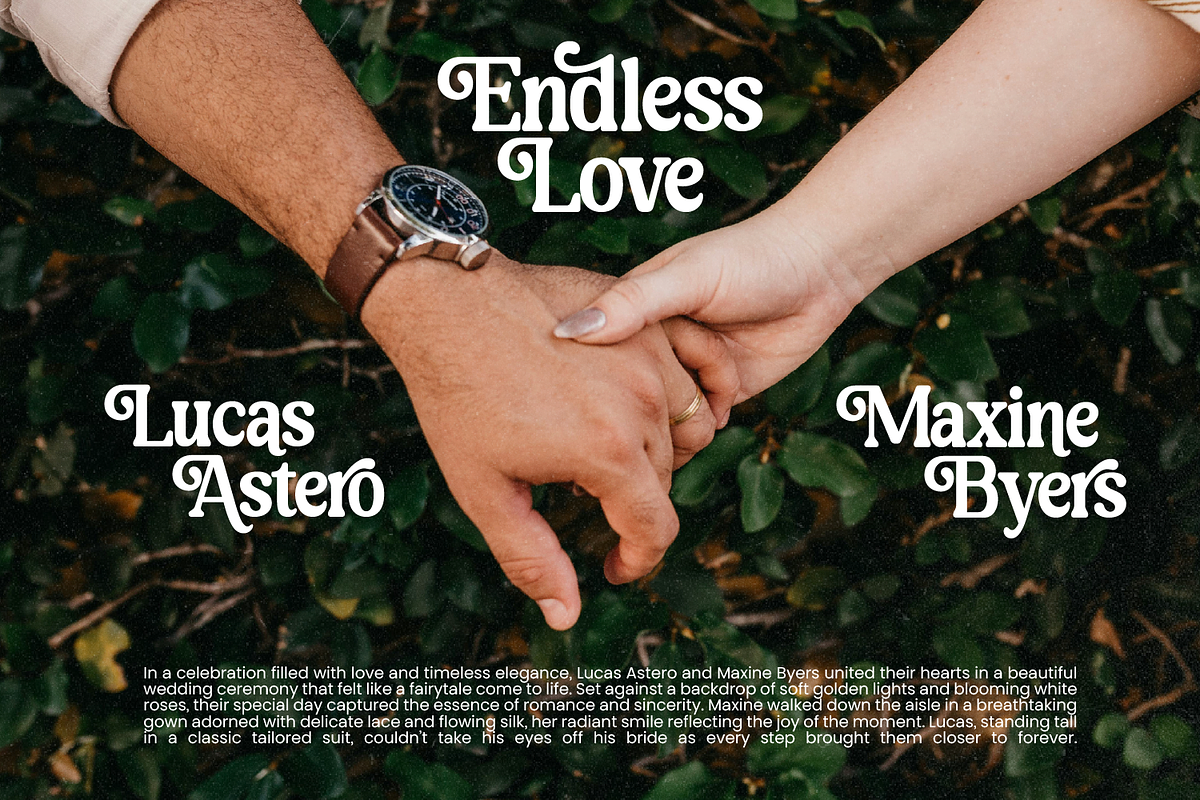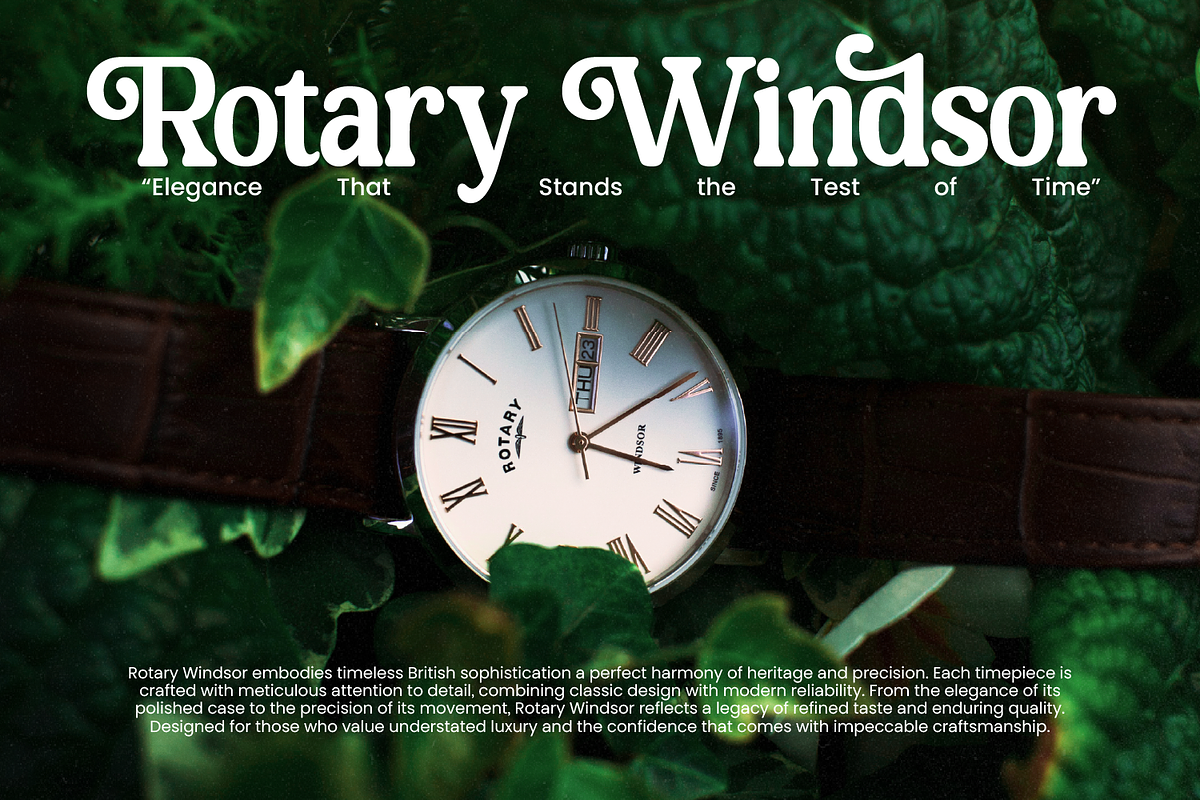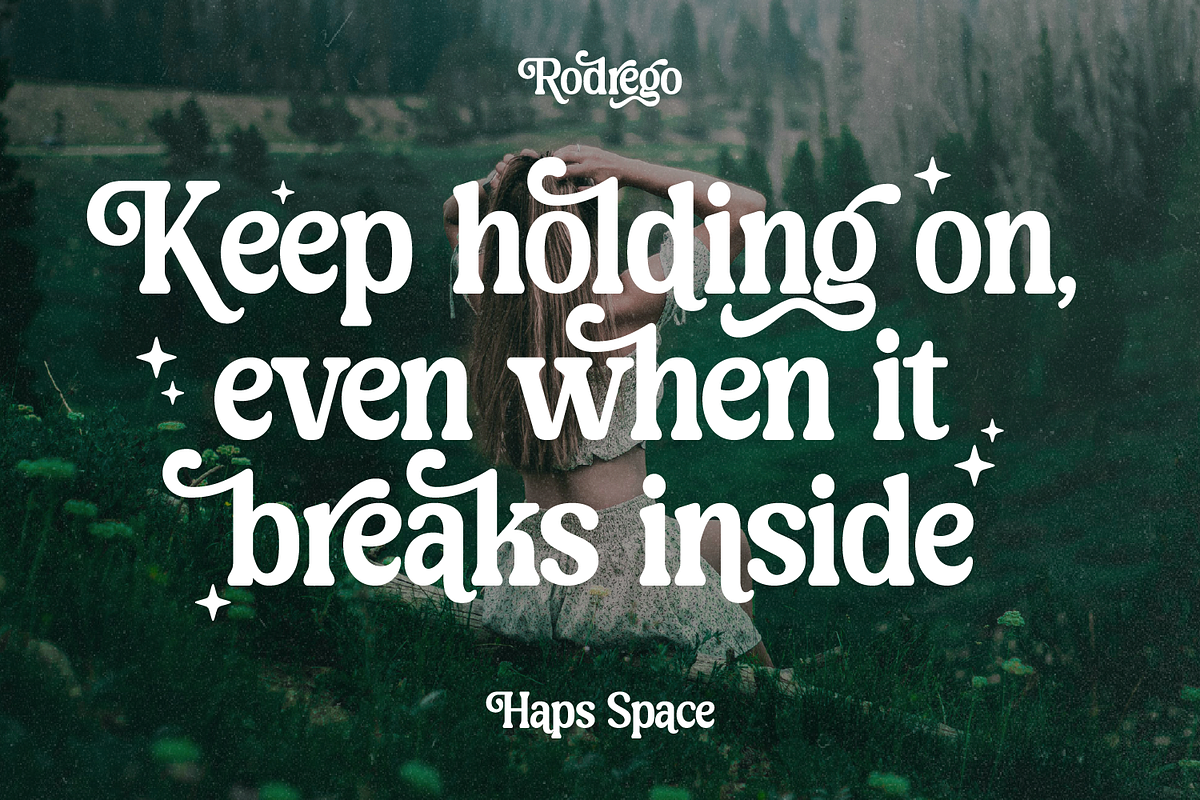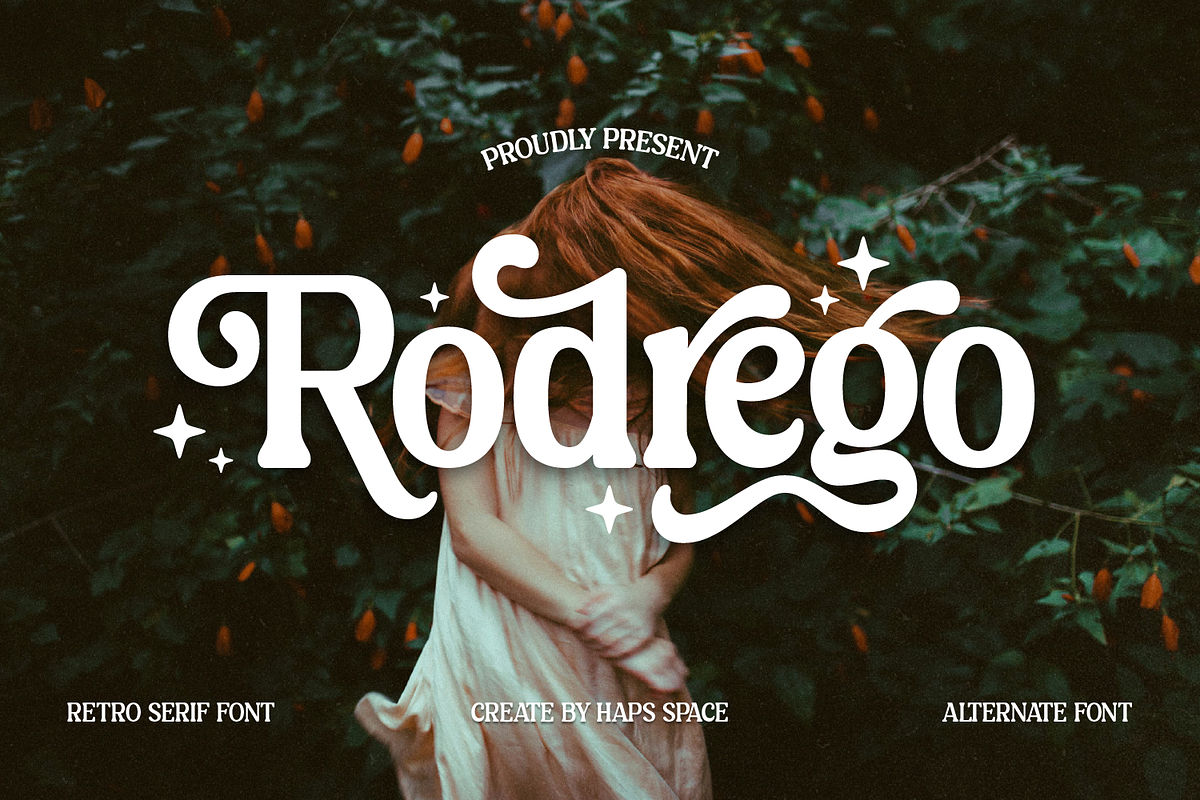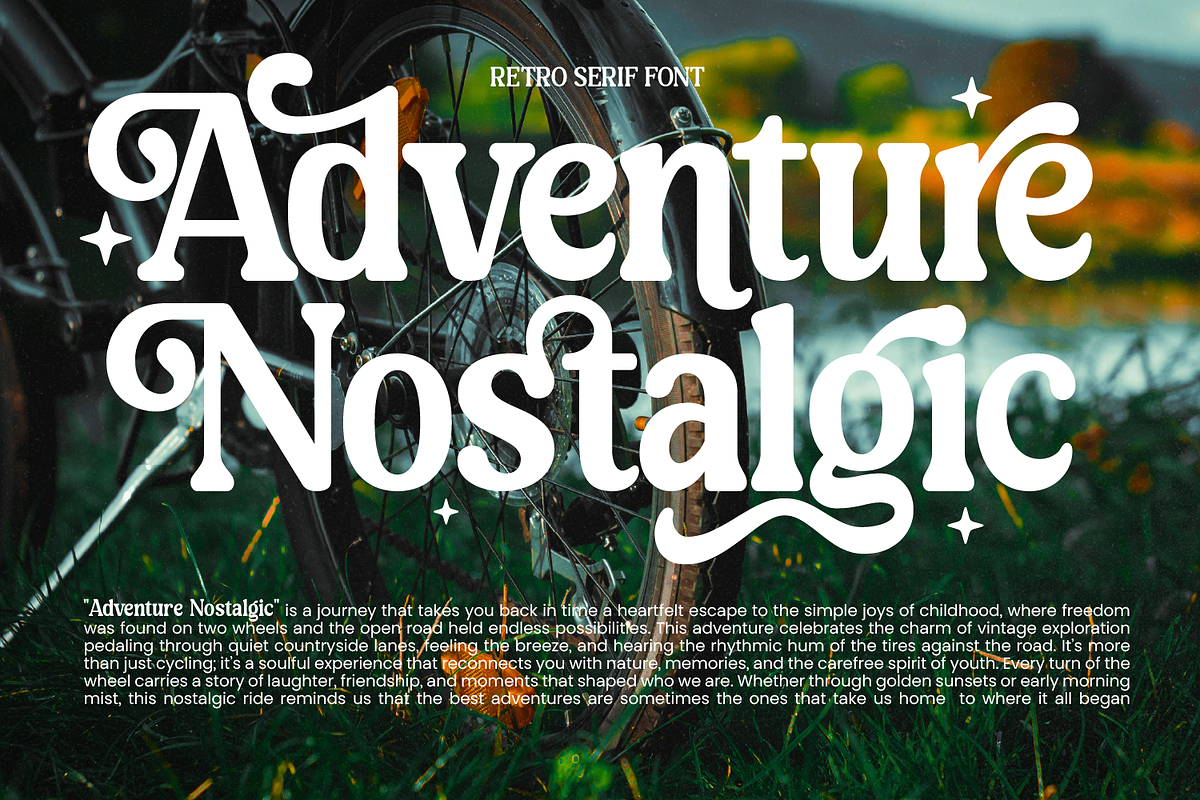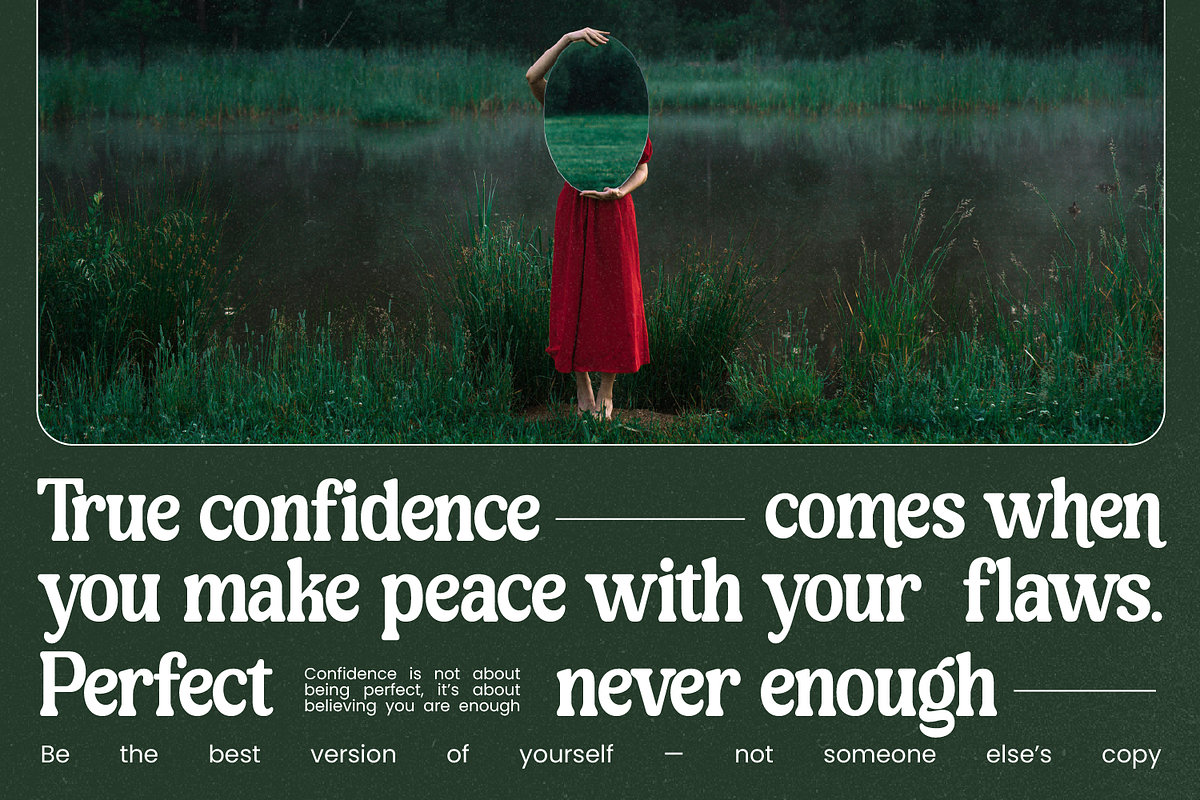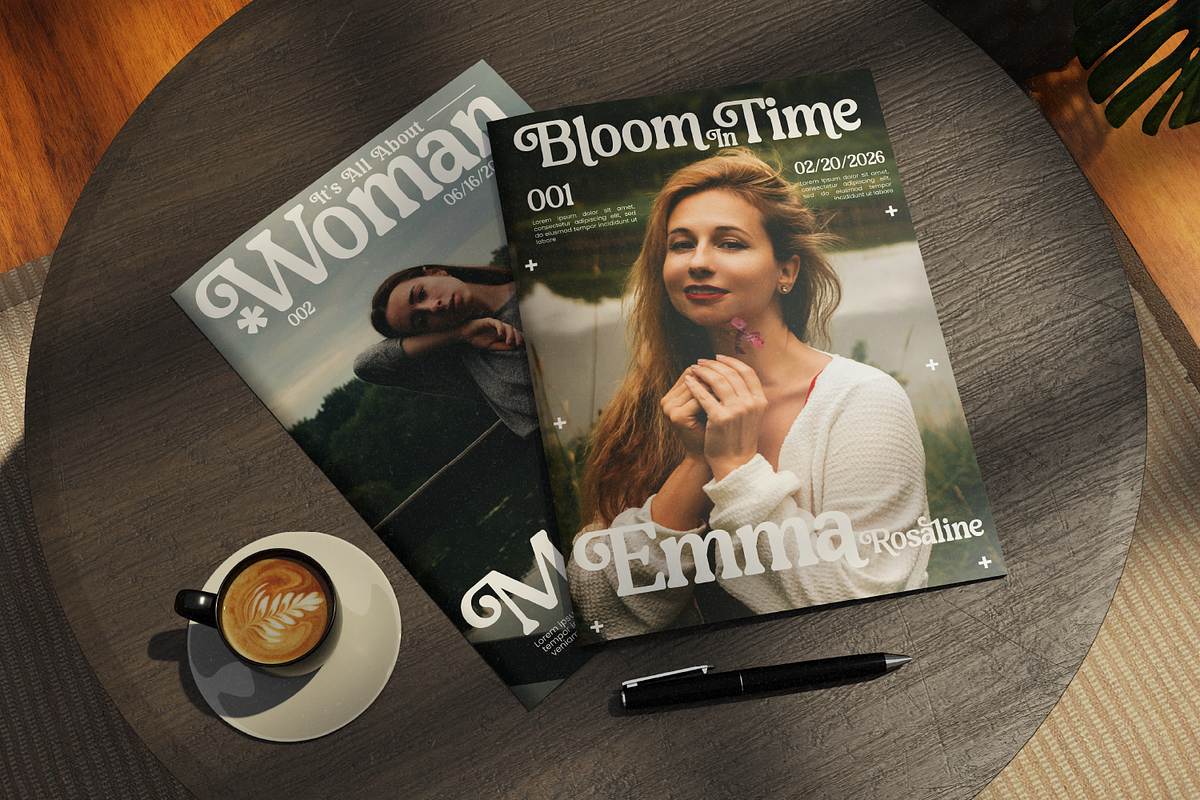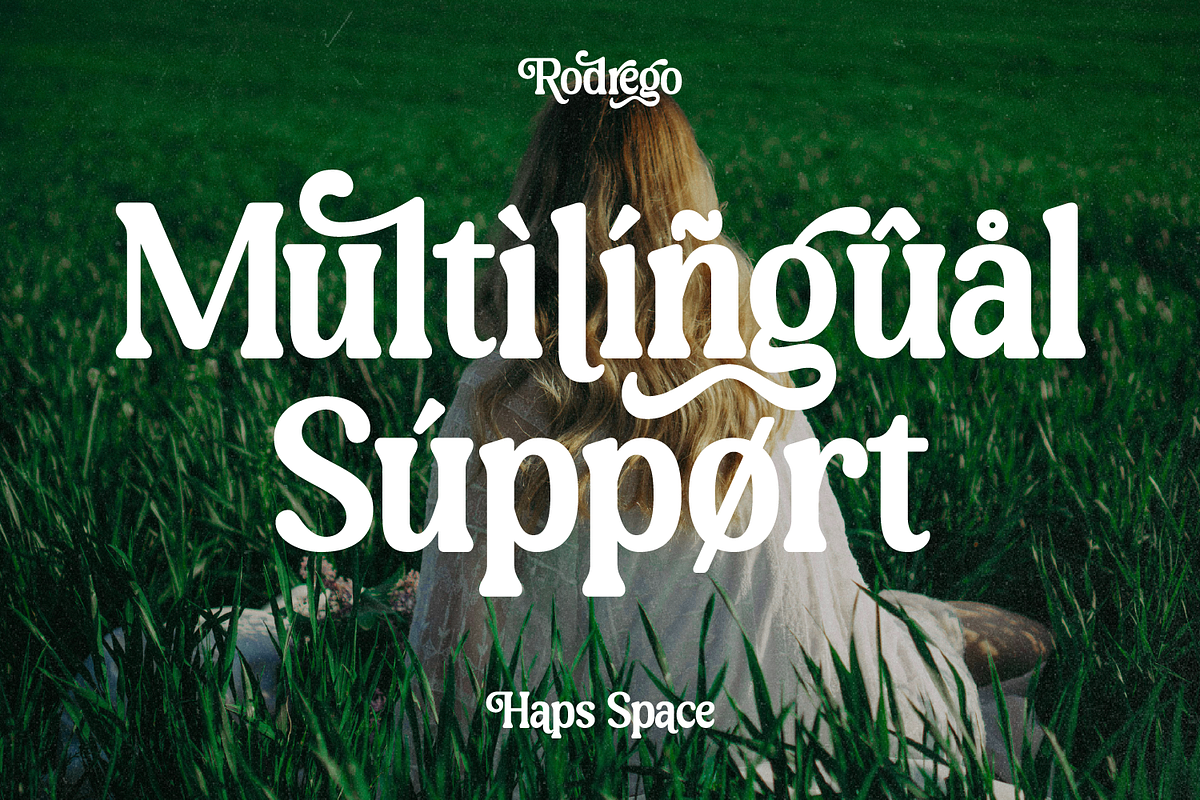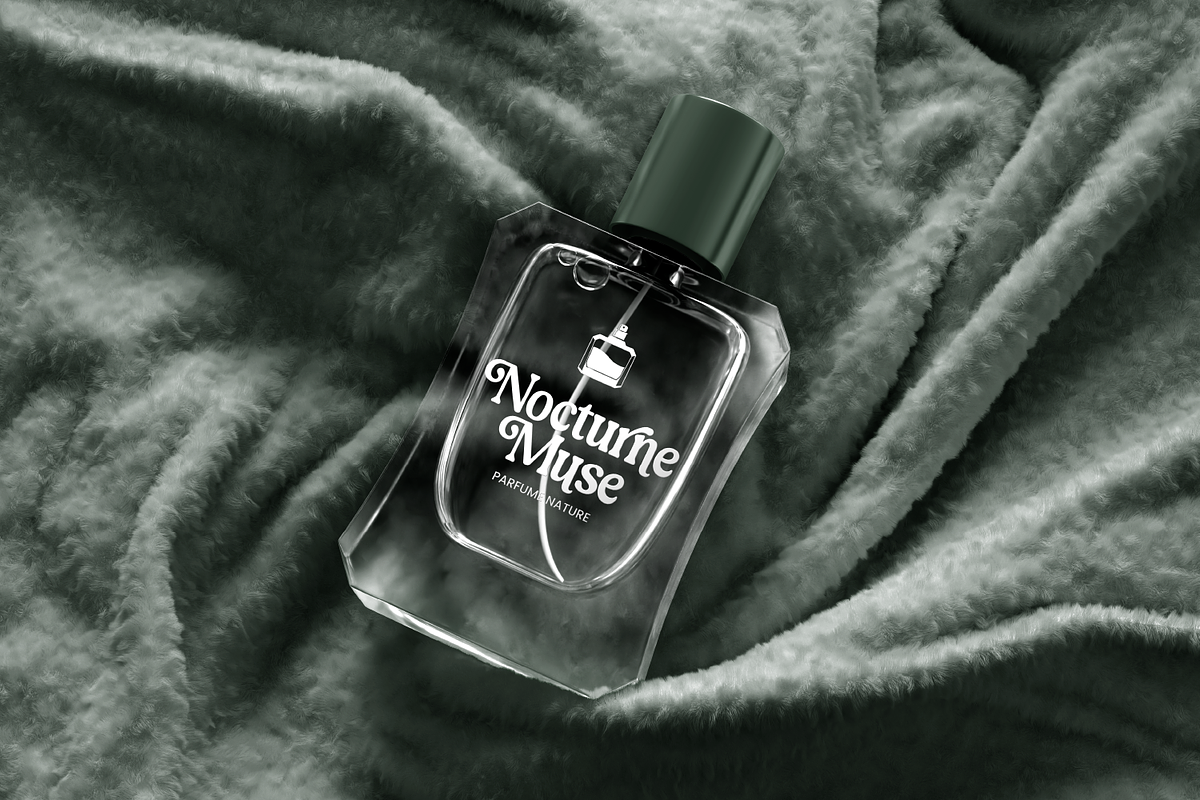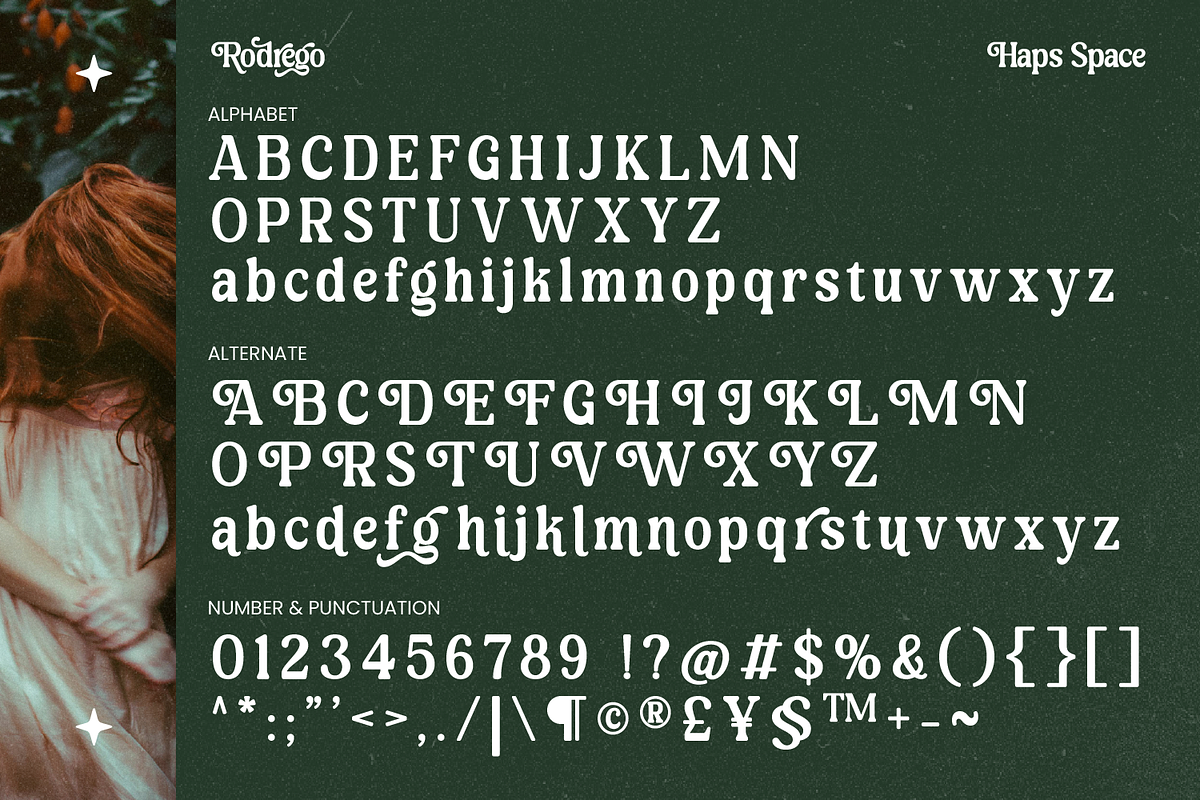
Rodrego Elegant Retro
Rodrego is a masterfully crafted retro serif font that strikes a perfect balance between vintage charm and modern sophistication. Inspired by 1970s editorial design, it features soft, flowing curves and unique alternates that add an instant "custom-made" feel to any project.
Whether you are building a high-end fashion brand, a moody Dark Academia presentation, or a chic lifestyle magazine, Rodrego provides the character and authority your designs deserve. Its thick, velvety strokes and whimsical ligatures make it ideal for headlines that need to capture attention while maintaining an air of timeless elegance.
\- Unique Alternates & Ligatures: Create a bespoke look with a variety of stylish character options.
\- Versatile Aesthetic: Perfect for logos, editorial layouts, wedding invitations, and social media branding.
\- High Contrast: Optimized for both digital screens and high-quality print.
\- Multilingual Support: Ready for global creative projects.
\* OpenType features such as ligatures and alternates